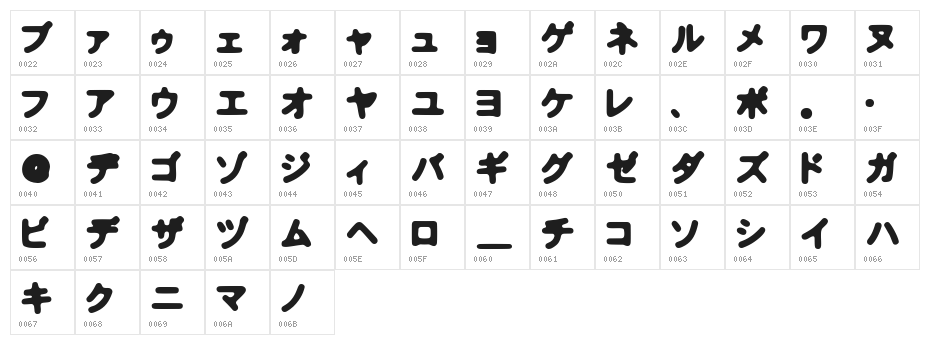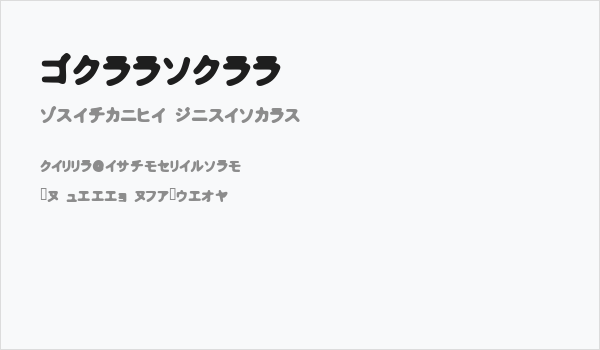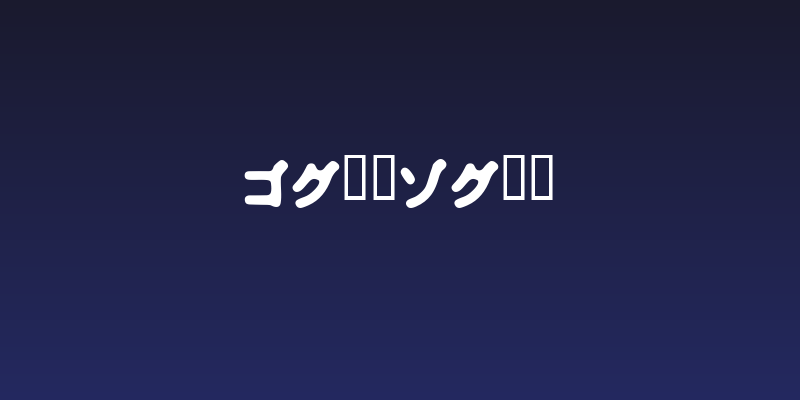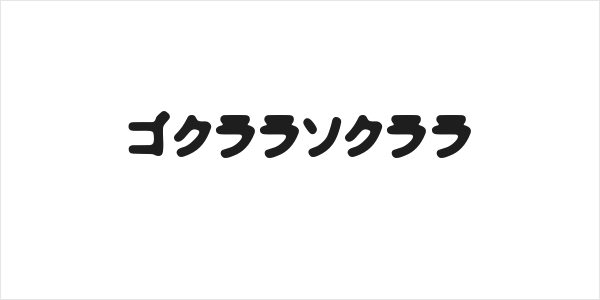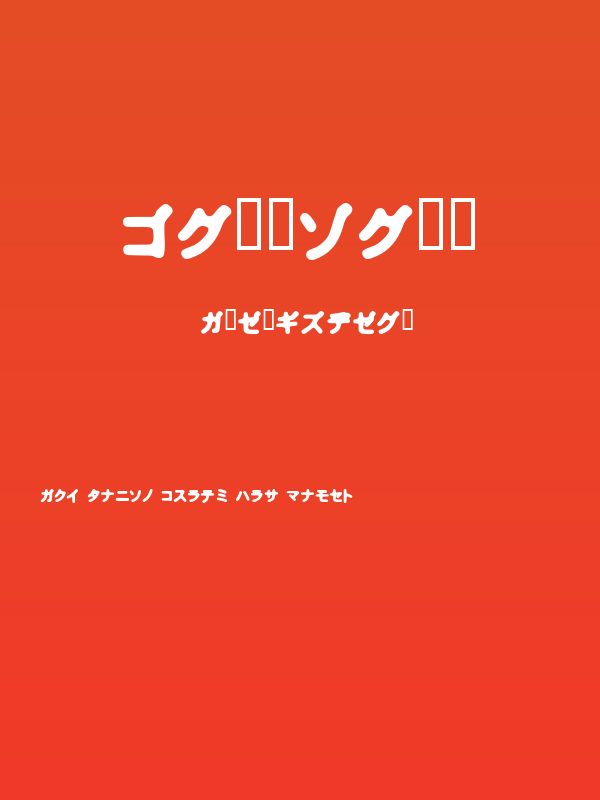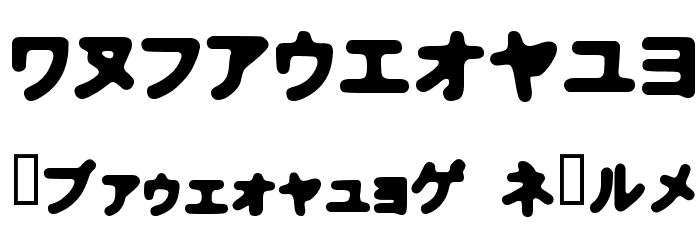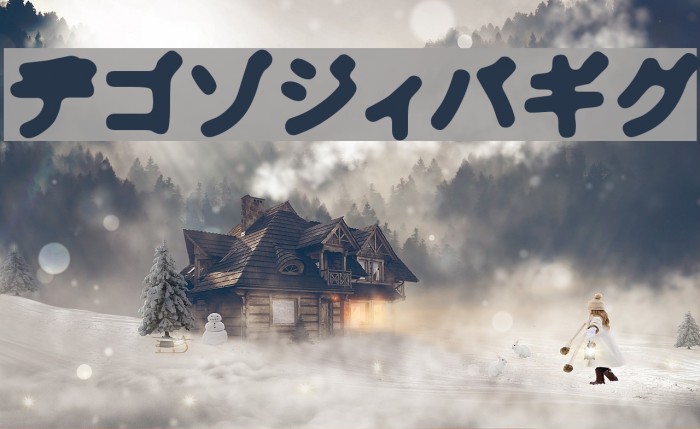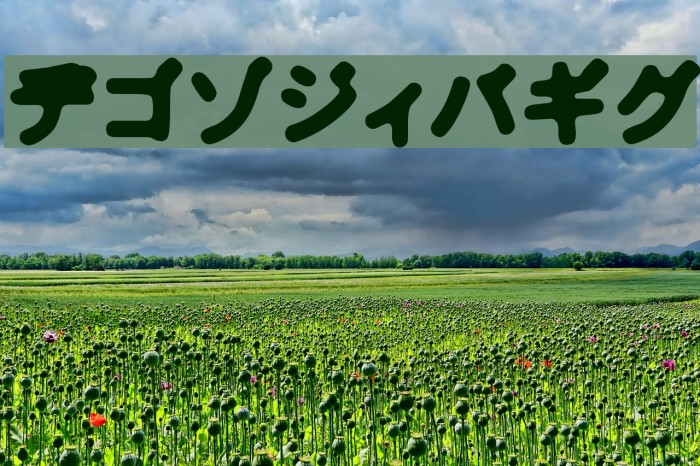
Bhoochoo Font
Bhoochoo Description
This font features bold, rounded characters with a playful and whimsical appearance. The strokes are thick and uniform, giving it a strong presence. The characters have a slightly cartoonish style, making them stand out with a friendly and approachable vibe. The overall design is consistent, with smooth curves and a lack of sharp edges, contributing to its soft and inviting look. This font is ideal for projects that require a fun and engaging aesthetic, as it captures attention with its distinctive and lively form.
| Overall Style | Playful |
| Proposed Projects | Ideal for children's books, playful branding, posters, and casual invitations. |